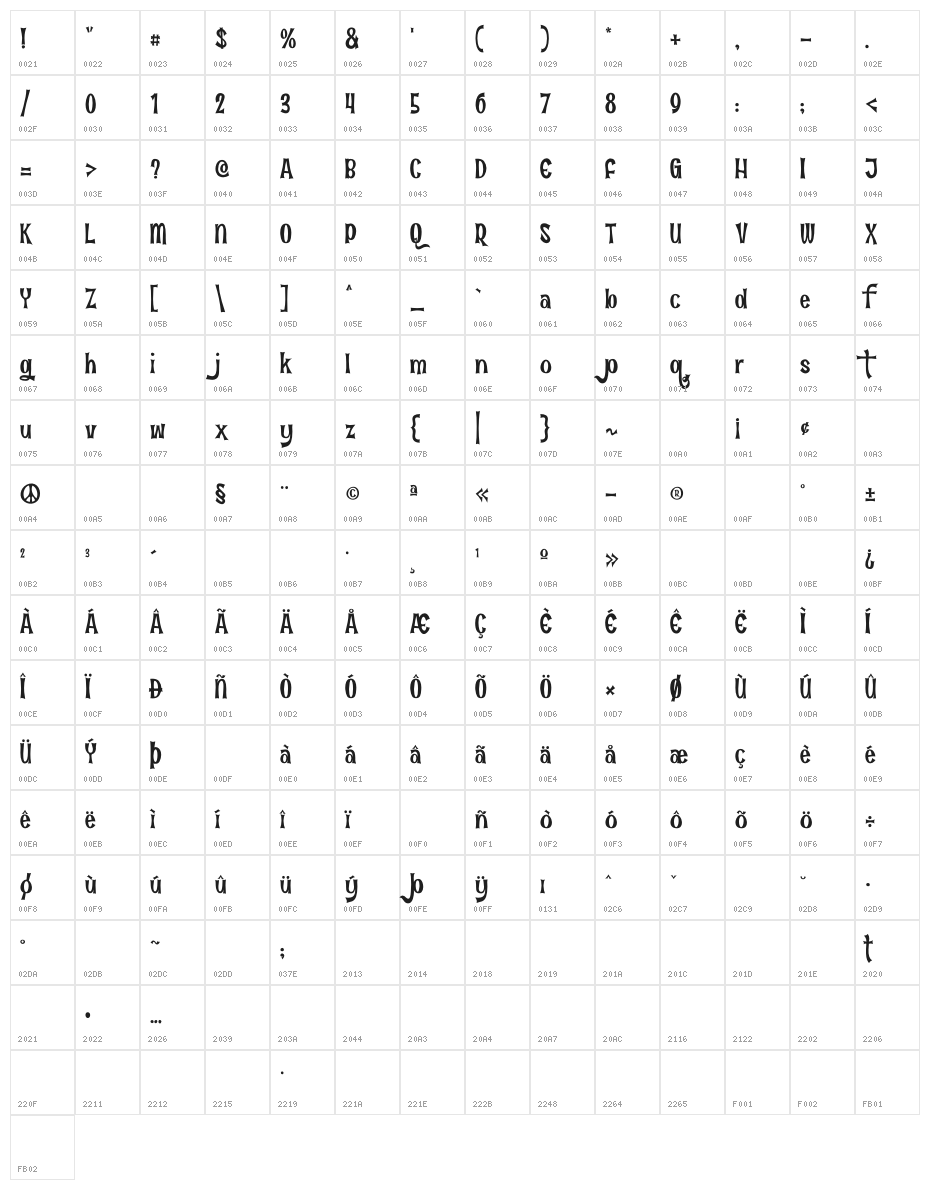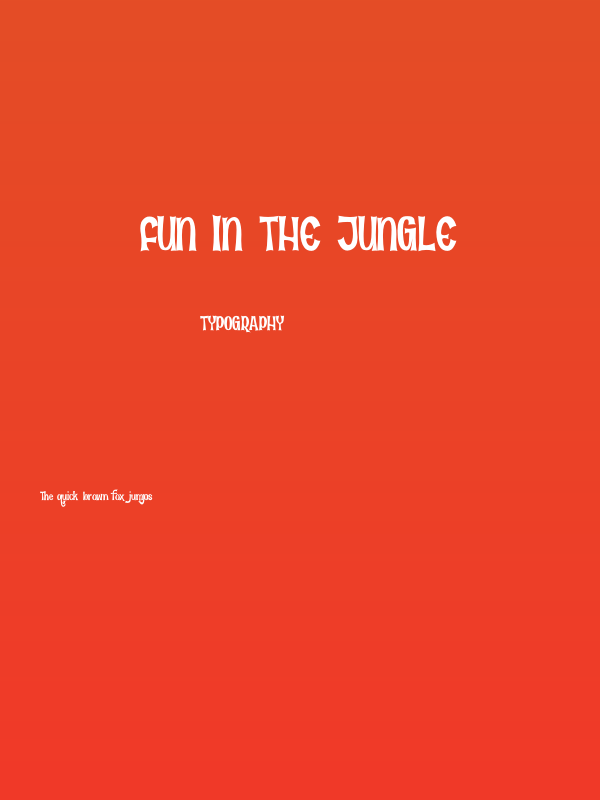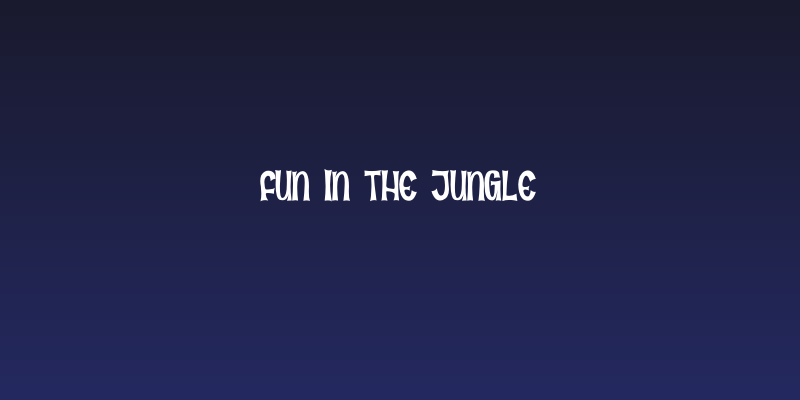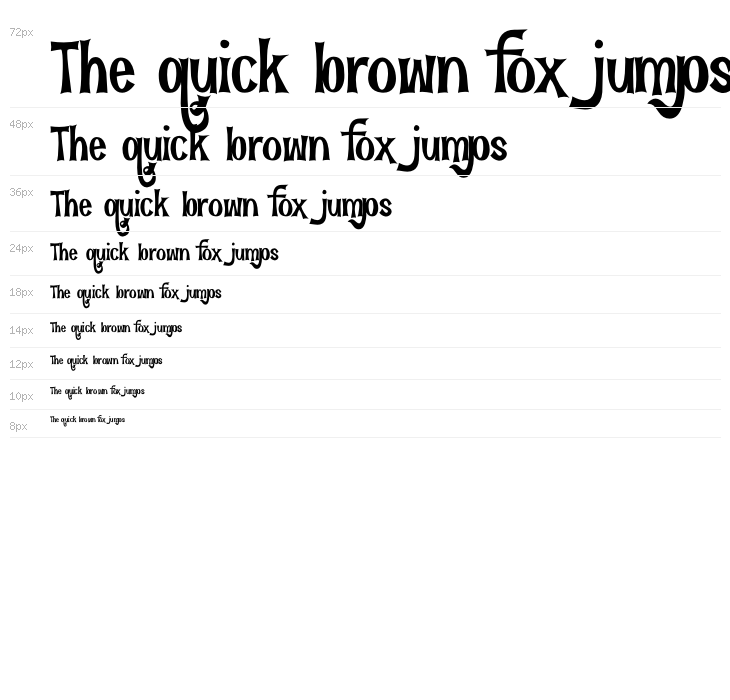
Fun in the Jungle Font
Fun in the Jungle Description
This playful and whimsical font features bold, exaggerated curves and a lively, dynamic style that evokes a sense of fun and adventure. The uppercase letters are tall and slightly narrow, with unique, irregular shapes that give them a hand-drawn appearance. The lowercase letters maintain the same playful aesthetic, with some characters featuring distinctive loops and swirls. The numbers are consistent with the overall style, offering a cohesive look. Special characters are creatively designed, adding to the font's charm. This font is perfect for projects that require a touch of humor and creativity.